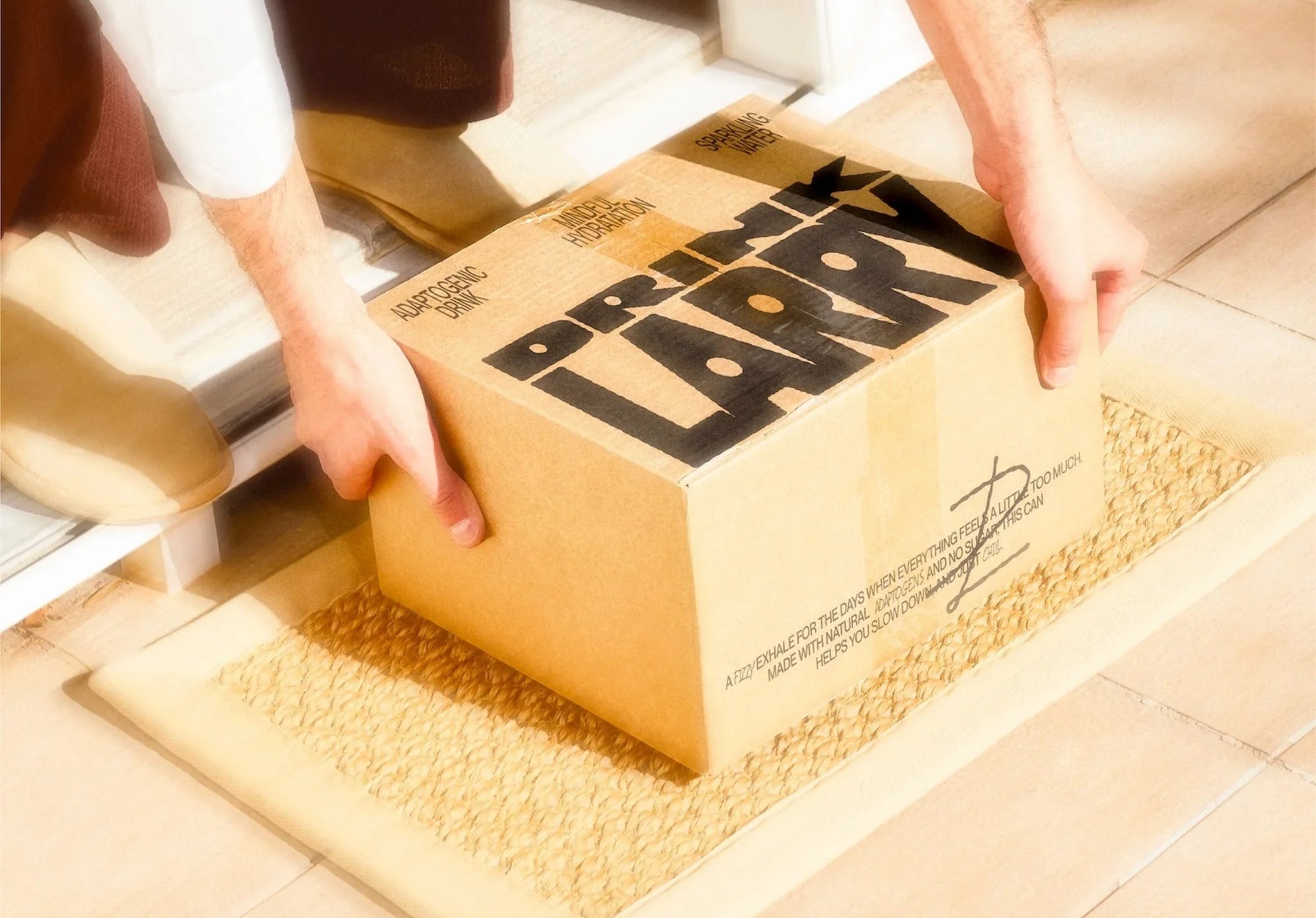
Drink Larry enters the adaptogenic beverage market with a refreshingly unconventional approach.
The all-natural, sugar-free drink helps users stay present and manage stress through its ingredients, while its identity deliberately breaks away from the polished, minimalist aesthetic that dominates the wellness category. Developed by PERSPECTIVA, a brand design studio based in Mexico, the identity embraces colour, bold forms and organic spontaneity.
The approach stems from a collaborative decision between the studio and client to create something that feels genuinely enjoyable rather than purely medicinal. “This drink came from the idea that sometimes life just feels like a lot,” explains Hugo Trejo Dorantes, Designer & Project Lead at the studio. “The client wanted something that feels like hitting a pause, just enjoy what’s real, keeping things a little weird and really feeling the moment while you’re having it.”
The visual language draws inspiration from the organic shapes of adaptogenic plants without literal interpretation. Rugged edges and funky details create a spontaneous feel that mirrors the brand’s philosophy of embracing the moment. The colour palette reflects the mix of four different plants and flavours within the drink, creating a vibrant system that feels alive and dynamic rather than clinical. “We wanted it to feel spontaneous, a little weird and true to our style, so we let those shapes blend with the brand’s personality,” Dorantes reveals.
Typography plays a crucial role in establishing the brand’s unconventional character. The team selected PP Neue Montreal from Pangram and Denton Variable as their primary typefaces, complemented by custom hand-drawn letterforms for specific applications. The logo has been designed entirely from scratch, ensuring the brand maintains complete ownership of its visual identity.
The approach deliberately targets young audiences dealing with stress, positioning Drink Larry as something genuinely enjoyable rather than a health obligation. “Staying true to the idea of enjoying the moment and keeping things a little spontaneous, we went for something colourful, inspired by the mix of flavours and plants in the drink,” notes Dorantes. “The goal was to reach a young audience dealing with stress, without it feeling like something you only drink because it’s good for you, but rather because it’s something you genuinely enjoy.”
This philosophy extends throughout the entire design process, which prioritised exploration over rigid planning. The studio allowed organic discovery to guide their decisions, creating an identity that feels authentic to both the brand’s values and PERSPECTVA’s design sensibilities. “I think what really sets it apart is that it doesn’t try to look or feel like a typical wellness product,” Dorantes explains. “It’s not about being perfect or polished. It’s about embracing that mix of authenticity, colour and a playful, unconventional edge, so it doesn’t feel like something you have just for your well-being.”